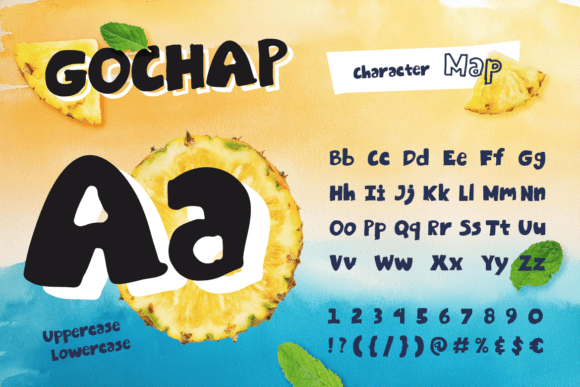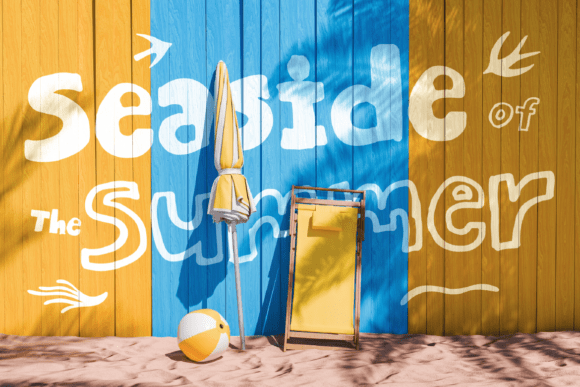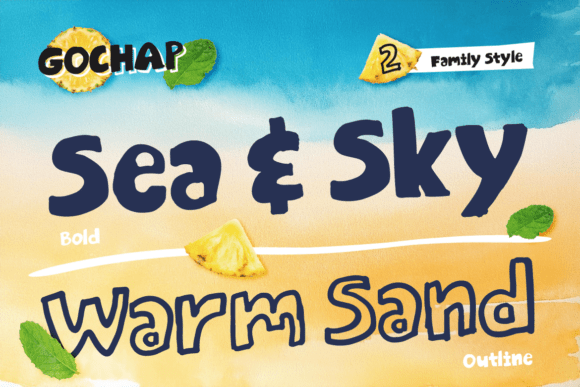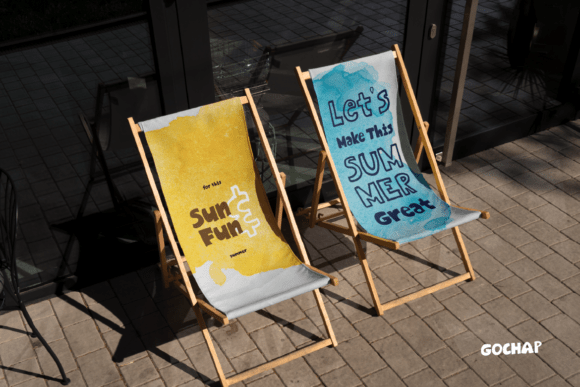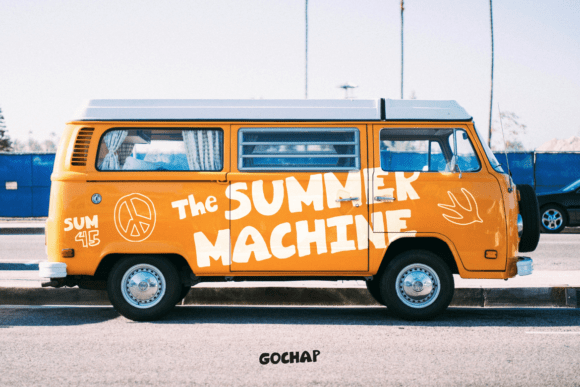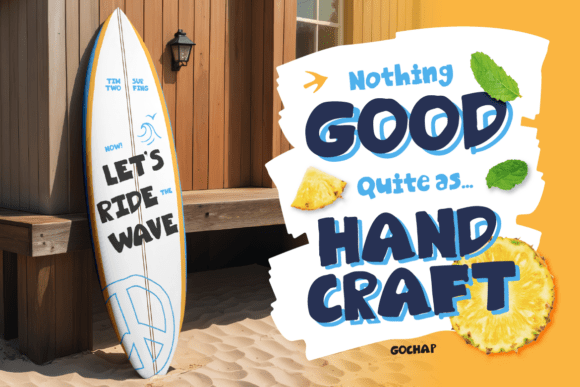
Introducing Gochap Font: The Ultimate Playful Typeface for Summer Designs
Are you looking for a font that can add a dash of playfulness and charm to your designs? Look no further than Gochap Font! This handcrafted typeface boasts a unique crayon-marker style that’s sure to capture the attention of your audience. With its bold personality and eye-catching vibe, Gochap is the perfect addition to your design arsenal, especially now that summer is here.
The Characteristics of Gochap Font
Gochap Font is a one-of-a-kind typeface that exudes a sense of fun and energy. Its crayon-marker style gives it a handcrafted feel that’s both charming and engaging. The font comes in two exciting styles: Bold and Outline, allowing you to experiment with different looks and feels. Whether you’re working on a poster, social media post, or packaging design, Gochap Font is sure to make your project stand out.
Perfect for Summer Designs
Summer is here, and it’s the perfect time to infuse your designs with a sunny and cheerful touch. Gochap Font is specifically designed to evoke the feeling of warmth and playfulness that’s synonymous with the season. Its bold and colorful style makes it ideal for designs that require a fun and energetic twist. From posters and flyers to social media posts and packaging, Gochap Font is the perfect choice for any summer-inspired project.
Use Cases for Gochap Font
Gochap Font is a versatile typeface that can be used in a variety of design projects. Here are some use cases where Gochap Font truly shines:
- Posters and Flyers: Add a bold and eye-catching touch to your posters and flyers with Gochap Font. Its playful style is sure to grab the attention of your audience and leave a lasting impression.
- Snack Packaging: Give your snack packaging a fun and energetic makeover with Gochap Font. Its colorful style is perfect for kids’ snacks and other food products that require a playful touch.
- Kids’ Branding: Gochap Font is a great choice for kids’ branding projects, such as logos, labels, and packaging. Its playful style is sure to appeal to kids and parents alike.
- Social Media Posts: Add a dash of fun and energy to your social media posts with Gochap Font. Its bold style is perfect for creating eye-catching graphics and posts that require a playful touch.
Why Choose Gochap Font?
So, why should you choose Gochap Font for your design projects? Here are just a few reasons:
- Unique Style: Gochap Font boasts a unique crayon-marker style that’s unlike any other font out there. Its handcrafted feel gives it a charming and engaging personality that’s sure to capture the attention of your audience.
- Versatility: Gochap Font comes in two exciting styles: Bold and Outline. This allows you to experiment with different looks and feels, making it perfect for a variety of design projects.
In conclusion, Gochap Font is a playful and charming typeface that’s perfect for adding a dash of fun and energy to your designs. Its unique crayon-marker style, bold personality, and eye-catching vibe make it a great choice for a variety of design projects, from posters and flyers to social media posts and packaging. With its two exciting styles, Bold and Outline, you can experiment with different looks and feels to create a unique and engaging design. So, why wait? Download Gochap Font today and add a sunny and cheerful touch to your summer designs!